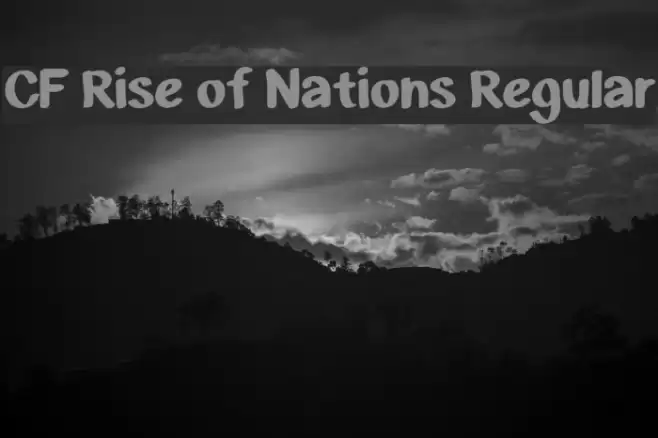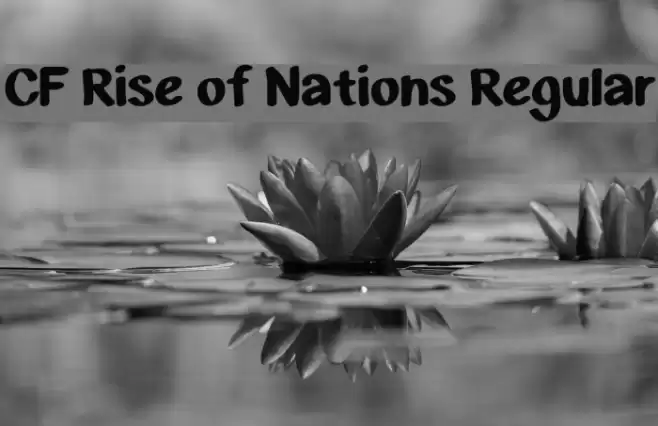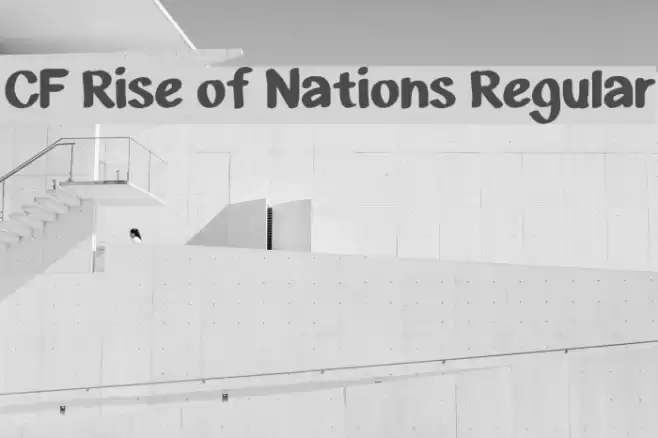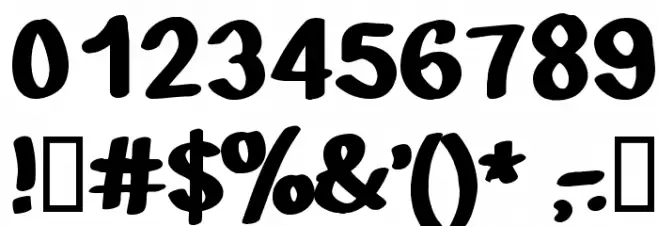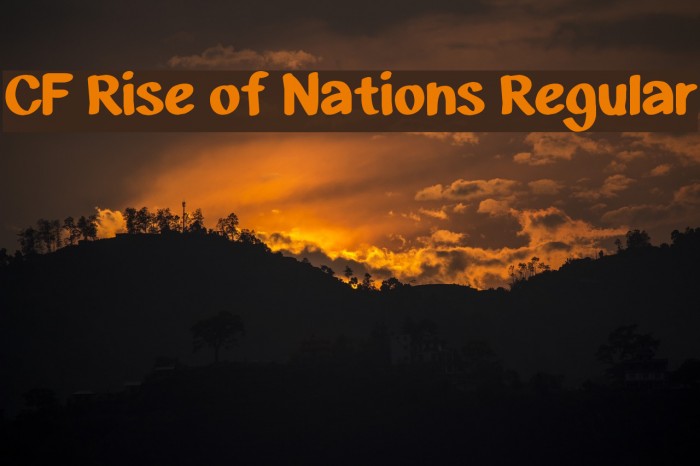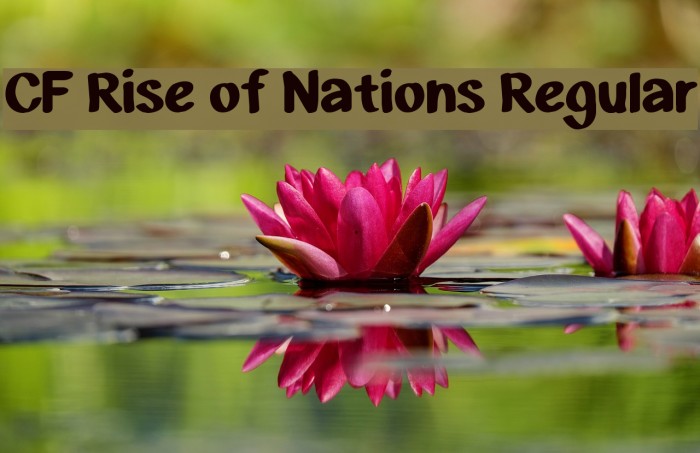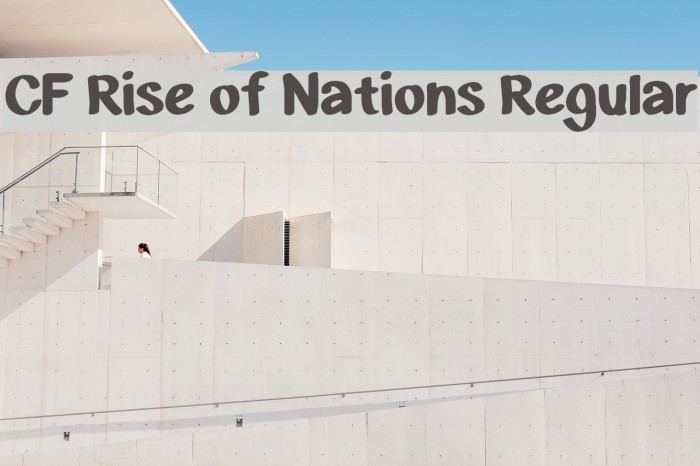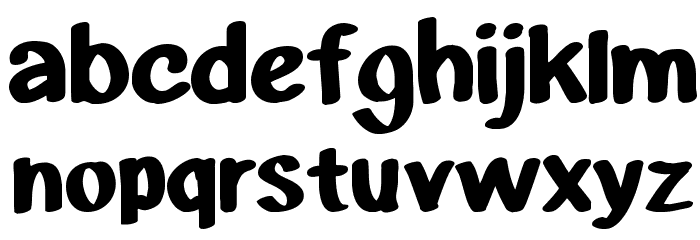
CF Rise of Nations Regular Font
CF Rise of Nations Regular Description
This font features a bold and playful style with rounded edges and a slightly irregular baseline, giving it a hand-drawn appearance. The uppercase letters are robust and maintain a consistent height, while the lowercase letters exhibit a friendly and approachable demeanor. The numerals are bold and easily legible, complementing the overall style. Special characters are creatively designed, adding to the font's unique charm. Its thick strokes and rounded forms make it suitable for projects that require a fun and engaging look.
A bold, playful font with rounded edges and a hand-drawn feel from Uncategorized fonts.
- Proposed Projects: Ideal for children's books, playful branding, posters, and social media graphics.
- Overall Style: Playful, Hand-drawn